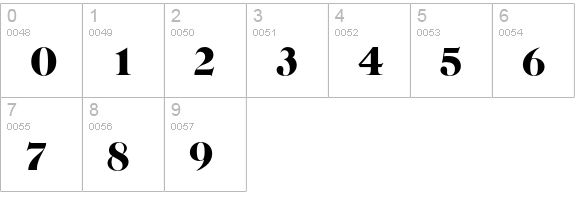
CaslonGraphiqueEF is a timeless and elegant serif font that exudes sophistication and charm. With its classic design and delicate serifs, this typeface is perfect for adding a touch of refinement to any project. Whether used for headings, invitations, or branding, CaslonGraphiqueEF effortlessly conveys a sense of tradition and luxury. What sets CaslonGraphiqueEF apart is not only its beauty but also the fact that it is freely available to download at FontsMarket.com. This means that you can easily access this exquisite font and incorporate it into your designs without any hassle. Don't miss out on the opportunity to elevate your creations with the timeless appeal of CaslonGraphiqueEF.